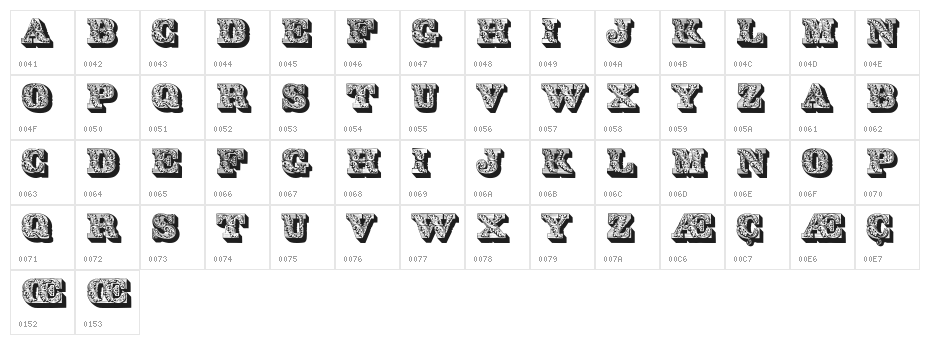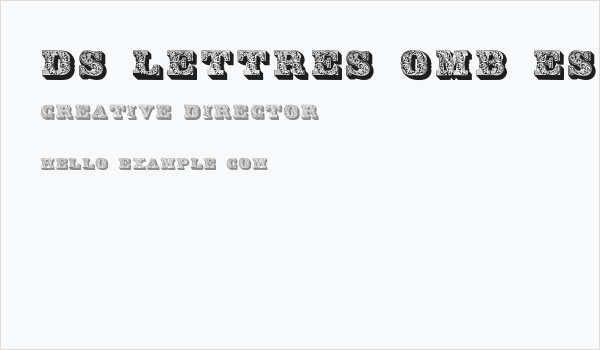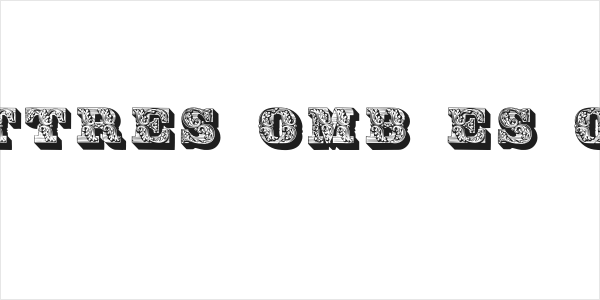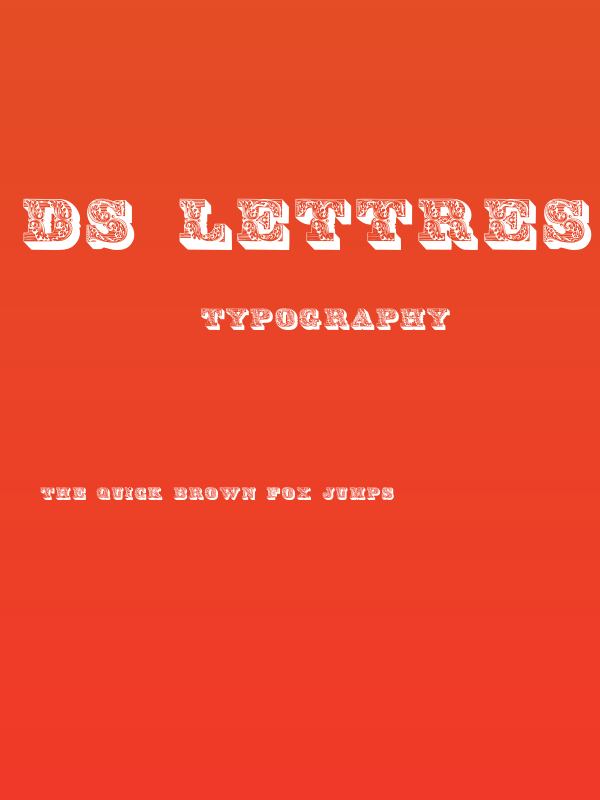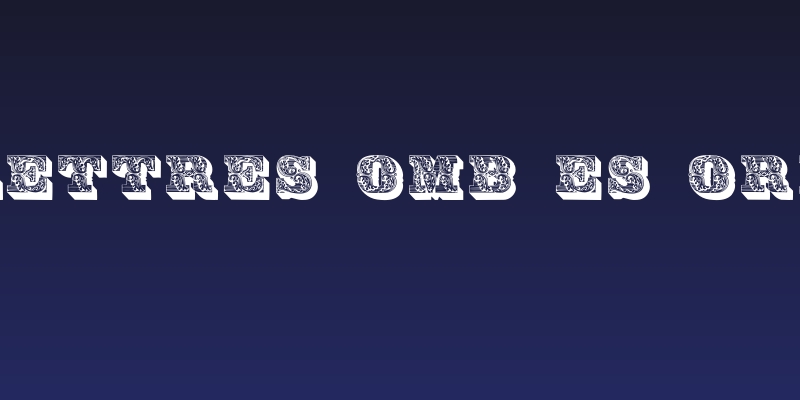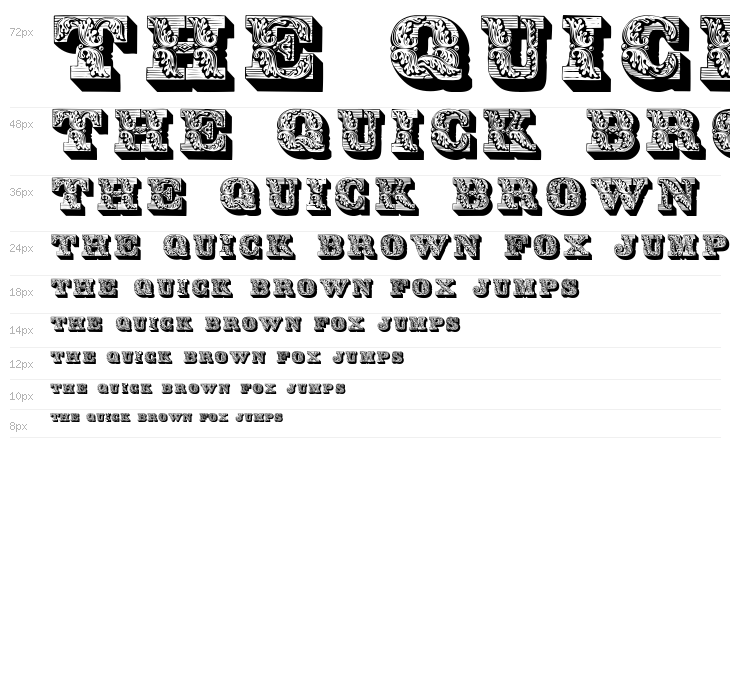
DS Lettres ombées ornées Font
DS Lettres ombées ornées Description
This font features an ornate and decorative style with intricate patterns within each letter, giving it a vintage and elaborate appearance. The letters are bold and have a three-dimensional shadow effect, enhancing their visual impact. The intricate detailing within each character adds a sense of elegance and complexity, making it suitable for designs that require a touch of sophistication and historical charm. The overall style is reminiscent of classic ornamental typography, often seen in vintage posters and signage.
| Proposed Projects | Ideal for vintage-themed posters, decorative signage, book covers, and invitations that require a classic and elegant touch. |